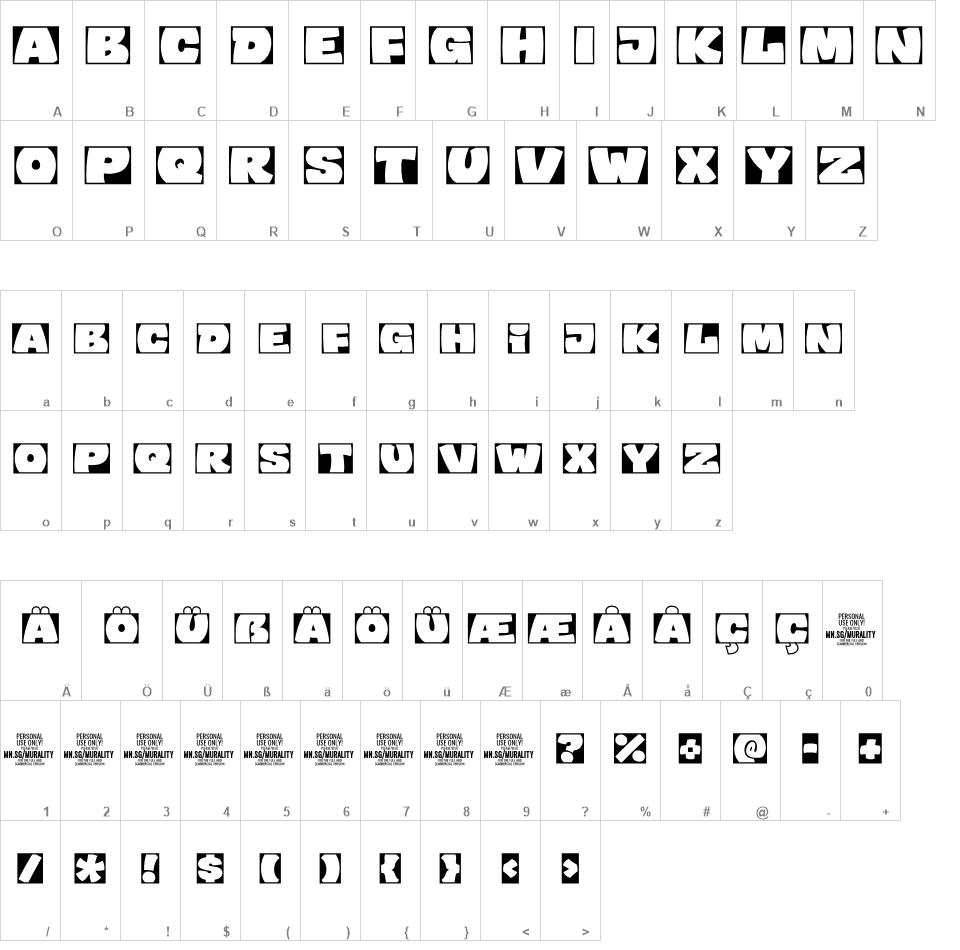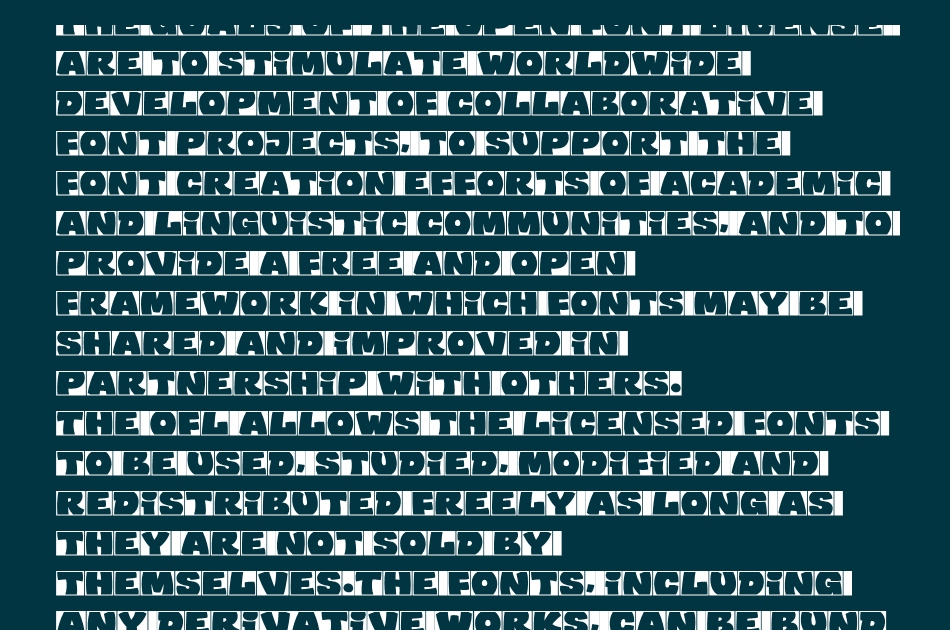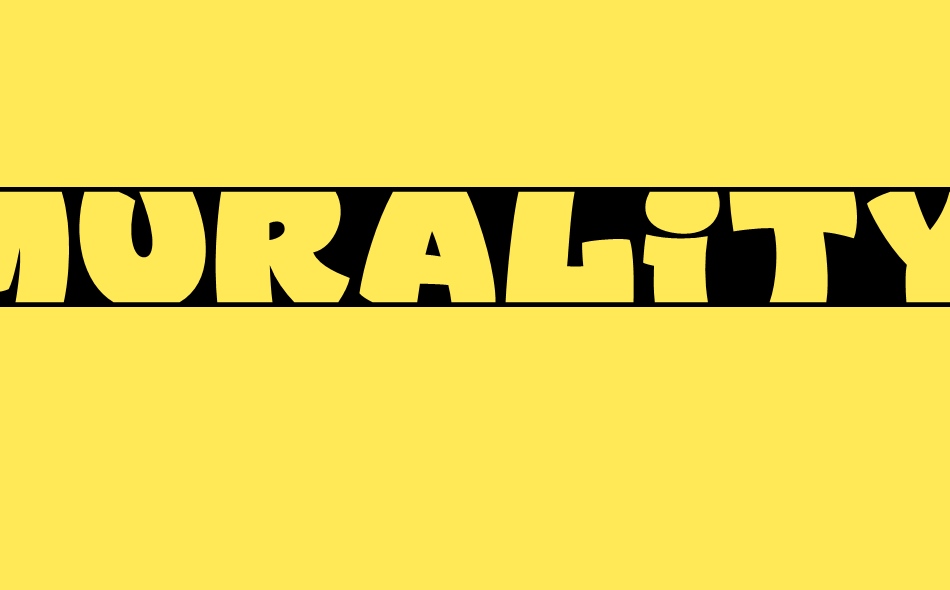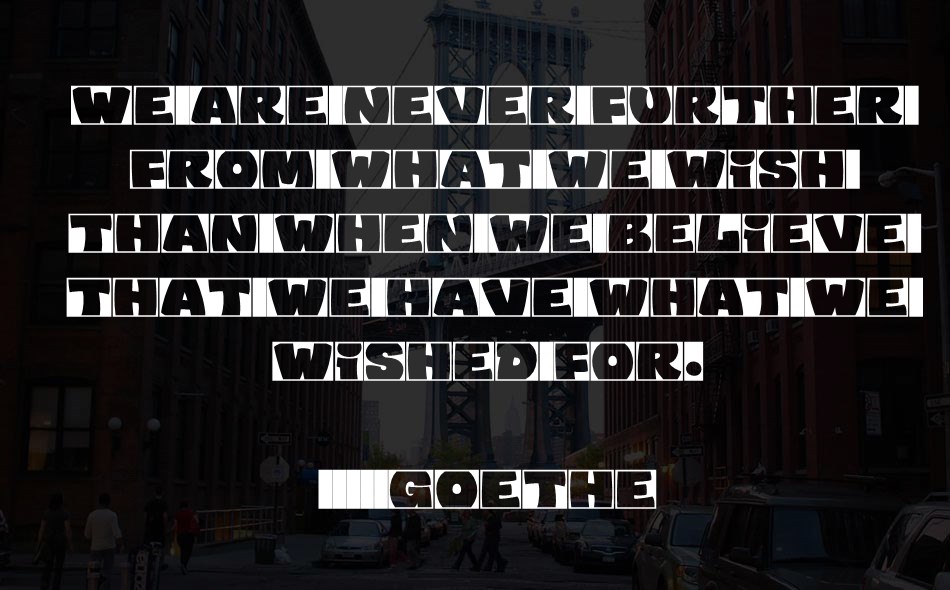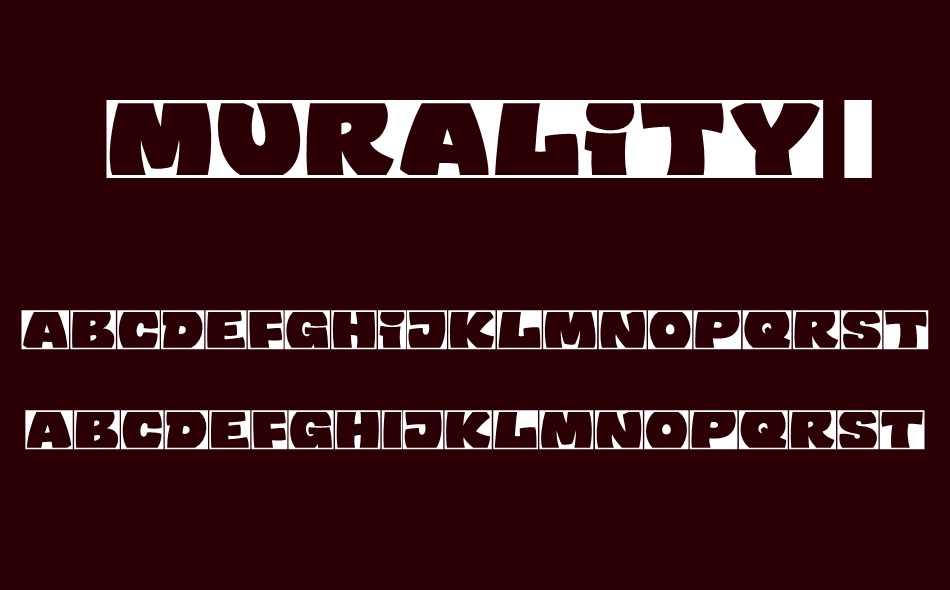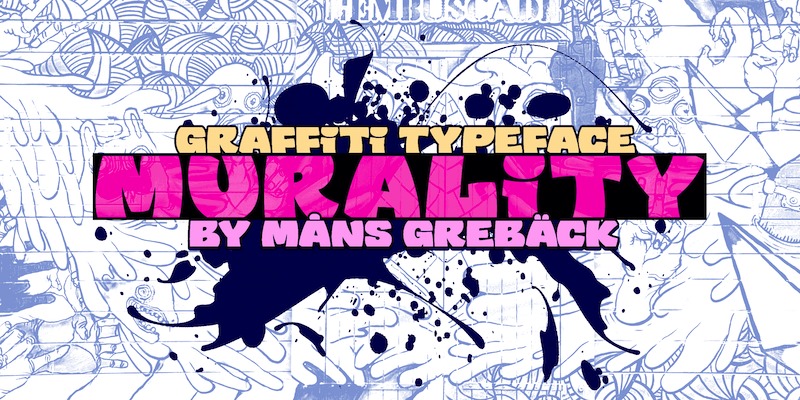
Murality font
Murality is a cartoon graffiti typeface.
The letters are fun and friendly, with a happy personality and optimistic quirkiness. A street sans-serif style, Murality is drawn and created by Mans Greback, and is the perfect combination of cool and childish typography.
This hip-hop styled comic typeface family consists of six styles: Regular, Thin, Black, Black Thin, Outline, Shadow
The font is built with advanced OpenType functionality and has a guaranteed top-notch quality, containing stylistic and contextual alternates, ligatures and more features; all to give you full control and customizability. It has extensive lingual support, covering all Latin-based languages, from North Europe to South Africa, from America to South-East Asia. It contains all characters and symbols you'll ever need, including all punctuation and numbers.